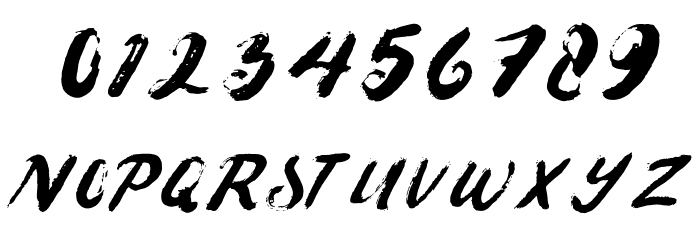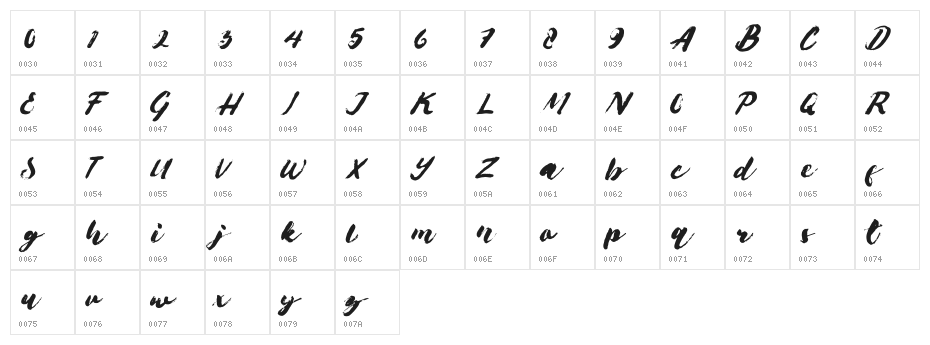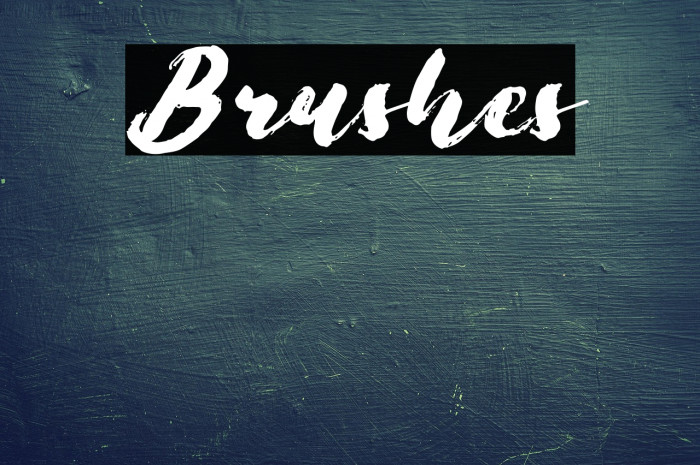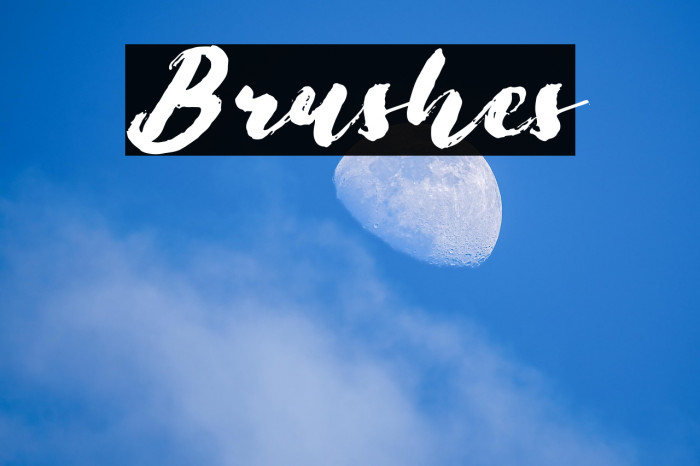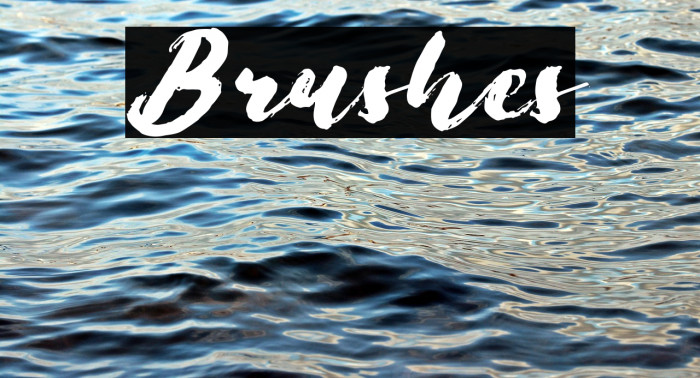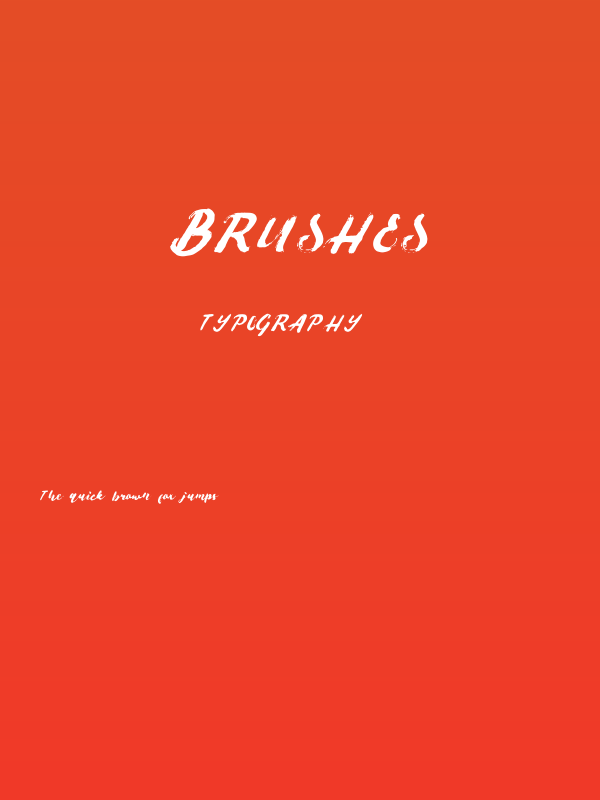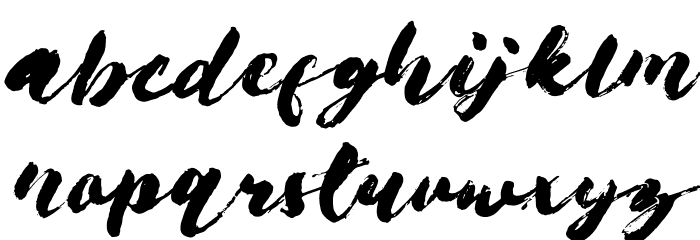
Brushes Font
Brushes Description
This font features a bold, expressive brush style that conveys a sense of dynamism and creativity. The strokes are thick and uneven, mimicking the natural texture of brush strokes, which gives it a handcrafted appearance. The uppercase and lowercase letters maintain a consistent flow, with some characters extending slightly beyond the baseline, adding to its artistic flair. The numbers and special characters are equally expressive, ensuring a cohesive look across all elements. This font is ideal for projects that require a personal touch or an artistic edge.
| Proposed Projects | Ideal for branding, posters, invitations, and any project needing an artistic, personal touch. |